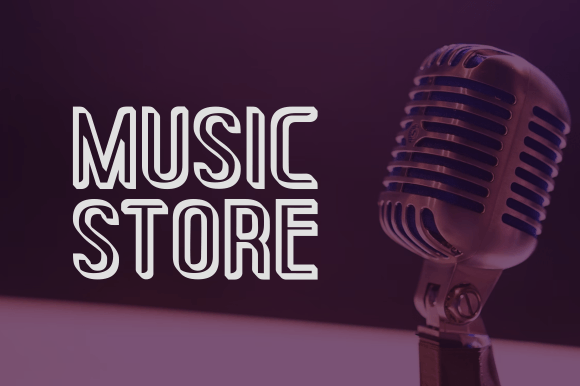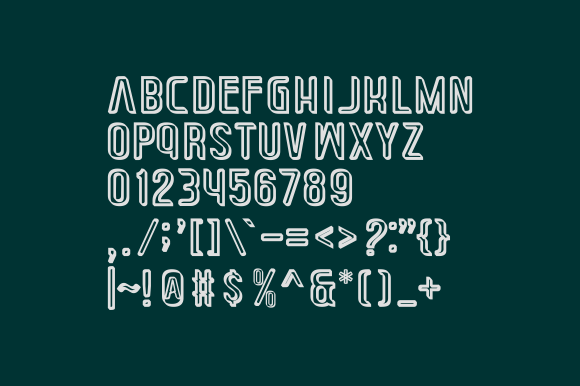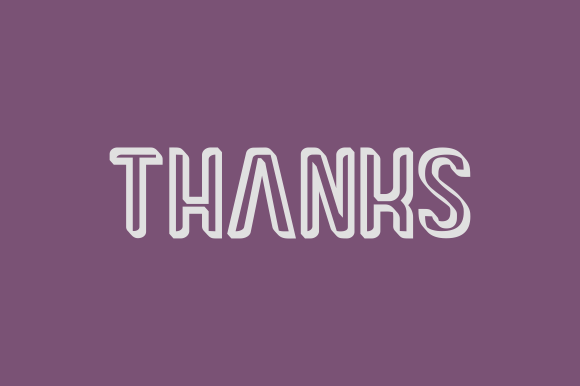
Introduction to Predho Font
Predho is a modern sans serif typeface.
It was thought to be used in a headline such as magazine covers, packaging design, perfume design, and cosmetics Use it confidently in your creation and you will notice the incredible touches it can add to your creations.
Key Features of Predho Font